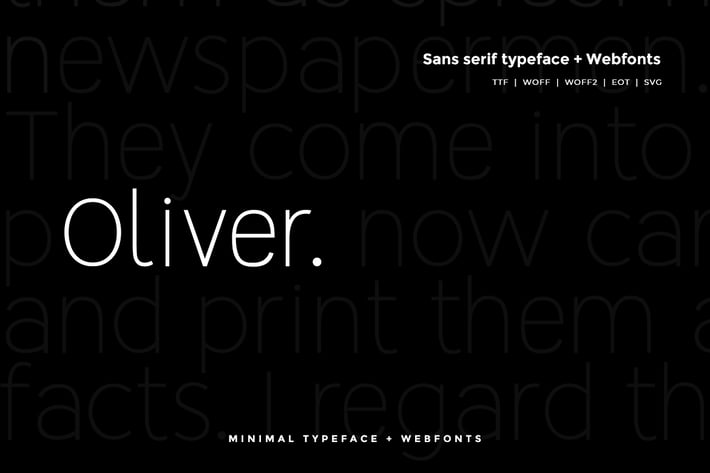
Oliver - Modern Typeface + WebFont
Oliver Sans Typeface
Oliver is a modern and Minimal Sans Serif typeface, Oliver Sans can keep the minimalism at its level best and is a Perfect choice for Creative and Classic Typography Designs.
Font Designed and Crafted by Martin lou, Distributed by Webhance Studio.